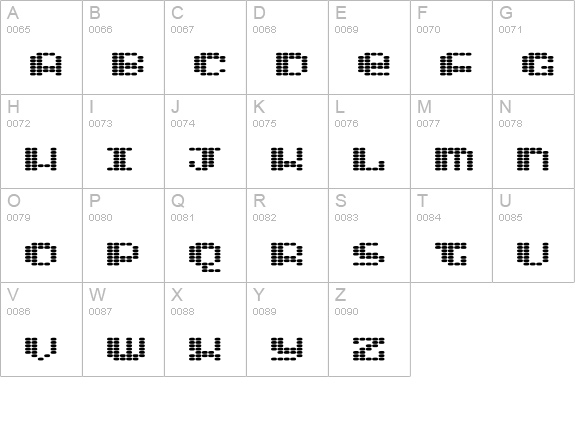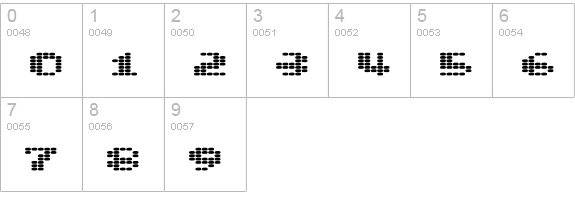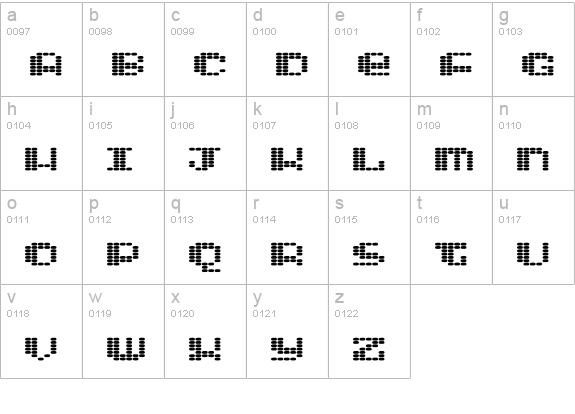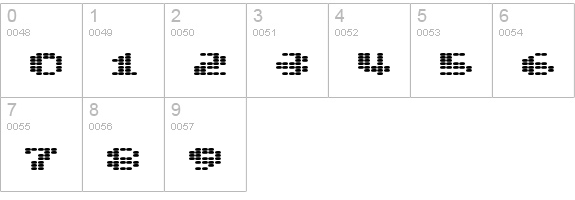
Intergalaktika Font Details
Introducing Intergalaktika, a stunning font that will transport you to new dimensions of creativity. This futuristic typeface exudes a sense of adventure and innovation, making it perfect for any project that aims to push boundaries and explore new frontiers. With its sleek and modern design, Intergalaktika captures the essence of the cosmos, evoking images of distant galaxies and interstellar travel. Its clean lines and geometric shapes give it a contemporary feel, while its unique letterforms add a touch of individuality and personality. But what truly sets Intergalaktika apart is not just its captivating aesthetic, but also its accessibility. This font is freely available to download at FontsMarket.com, making it an invaluable resource for designers, artists, and enthusiasts alike. Whether you're working on a personal project or a professional endeavor, Intergalaktika is here to help you make a bold statement. With a wide range of weights and styles to choose from, this font offers endless possibilities. Whether you're looking for a bold headline that demands attention or a subtle body text that adds a touch of sophistication, Intergalaktika has you covered. Its versatility and adaptability make it suitable for a variety of applications, from branding and advertising to packaging and web design. So why wait? Embrace the future and download Intergalaktika today. Let your imagination soar as you explore the vast possibilities that this font has to offer. With its captivating design and the freedom to use it however you please, Intergalaktika is a font that will take your projects to new galaxies of creativity.